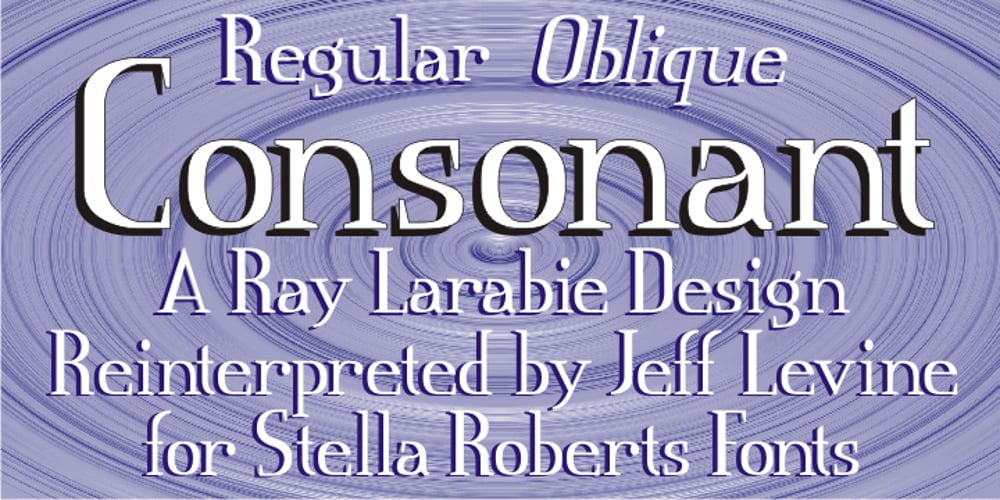
Consonant SRF Font Family was designed by published by Stella Roberts Fonts. Consonant SRF contains 2 styles and family package options. This imaginative and unusual serif text face was developed by Jeff Levine from an old Ray Larabie design. Improved and updated, it is exclusive to Stella Roberts Fonts. The net profits from my font sales help defer medical expenses for my siblings, who both suffer with Cystic Fibrosis and diabetes. Thank you.